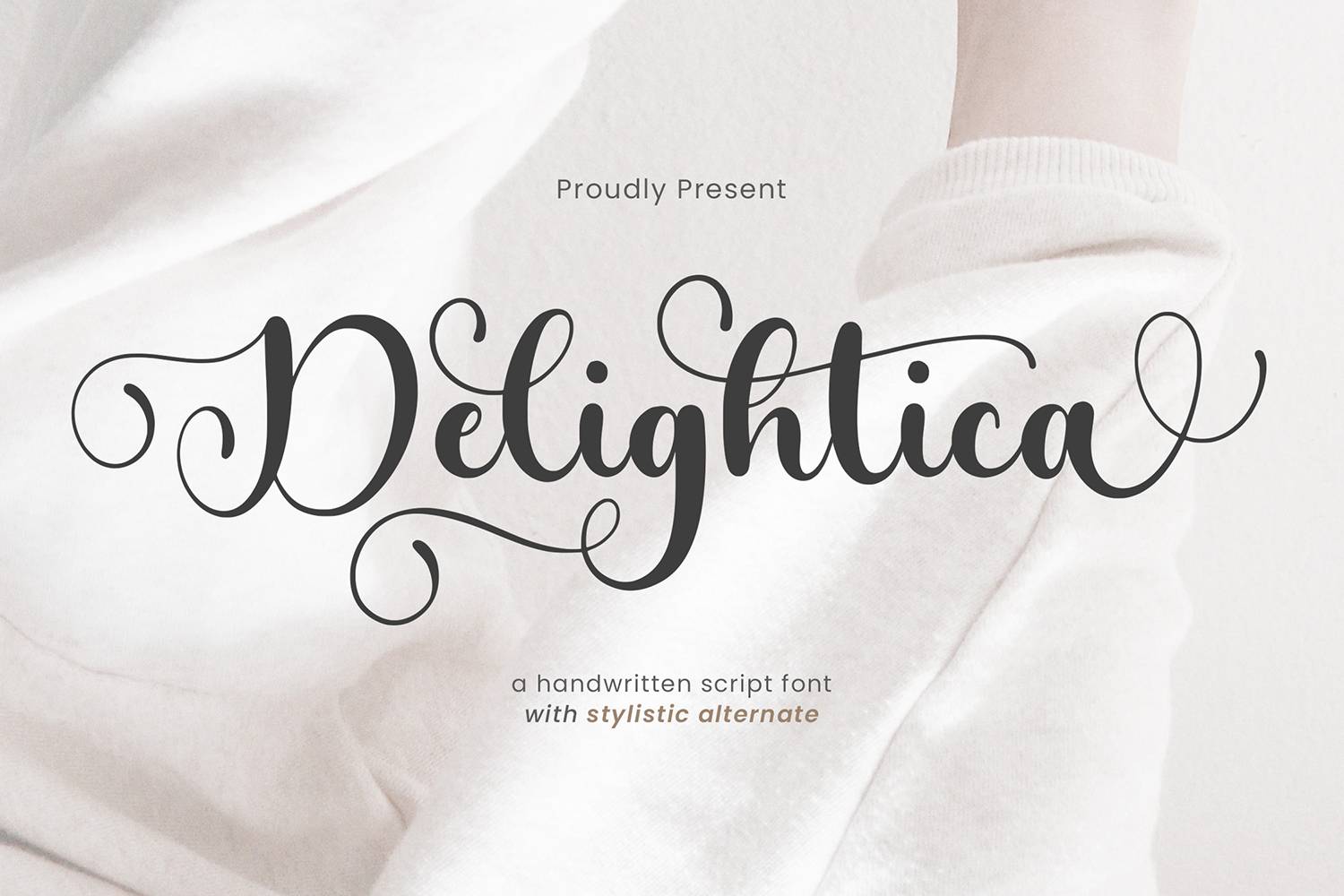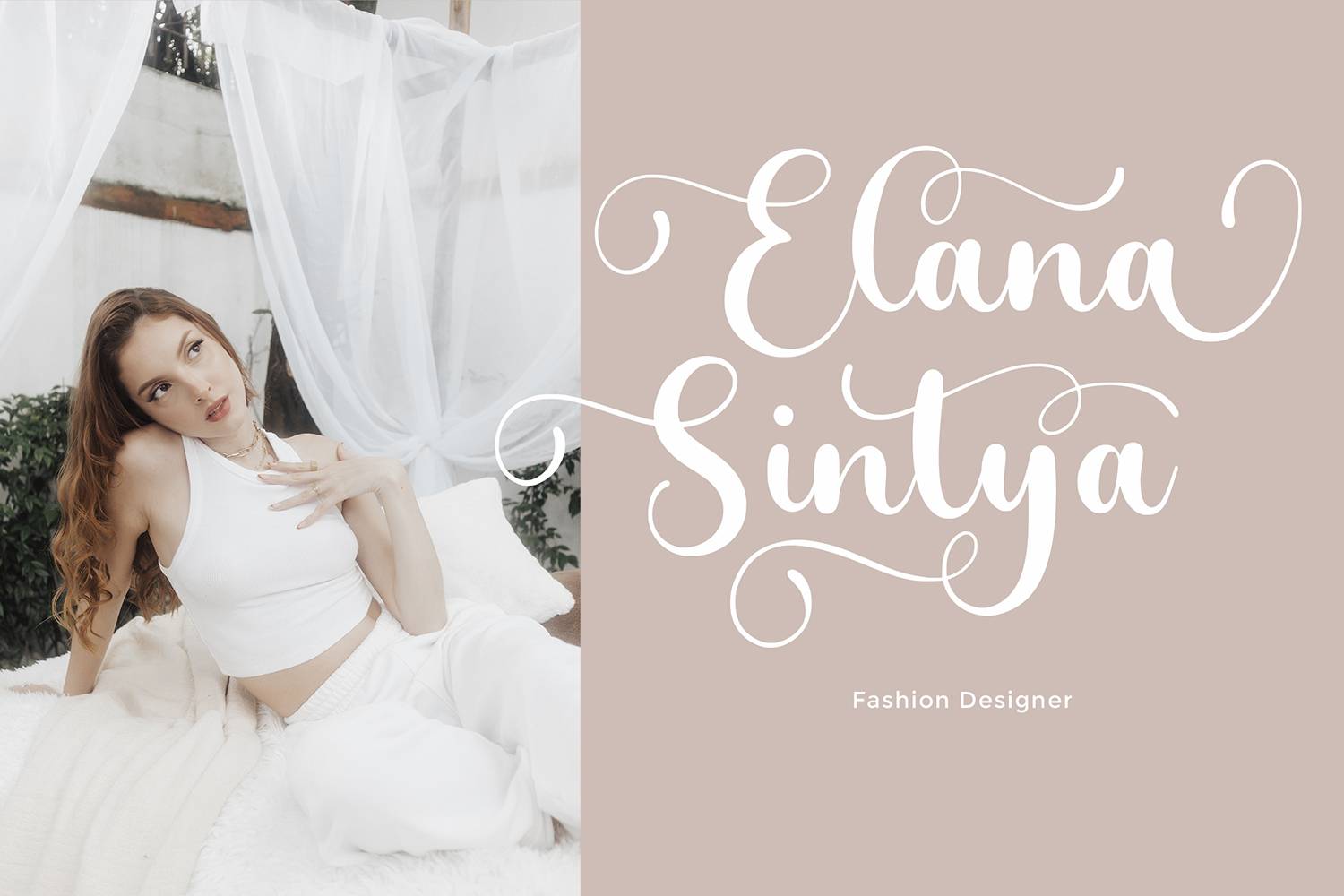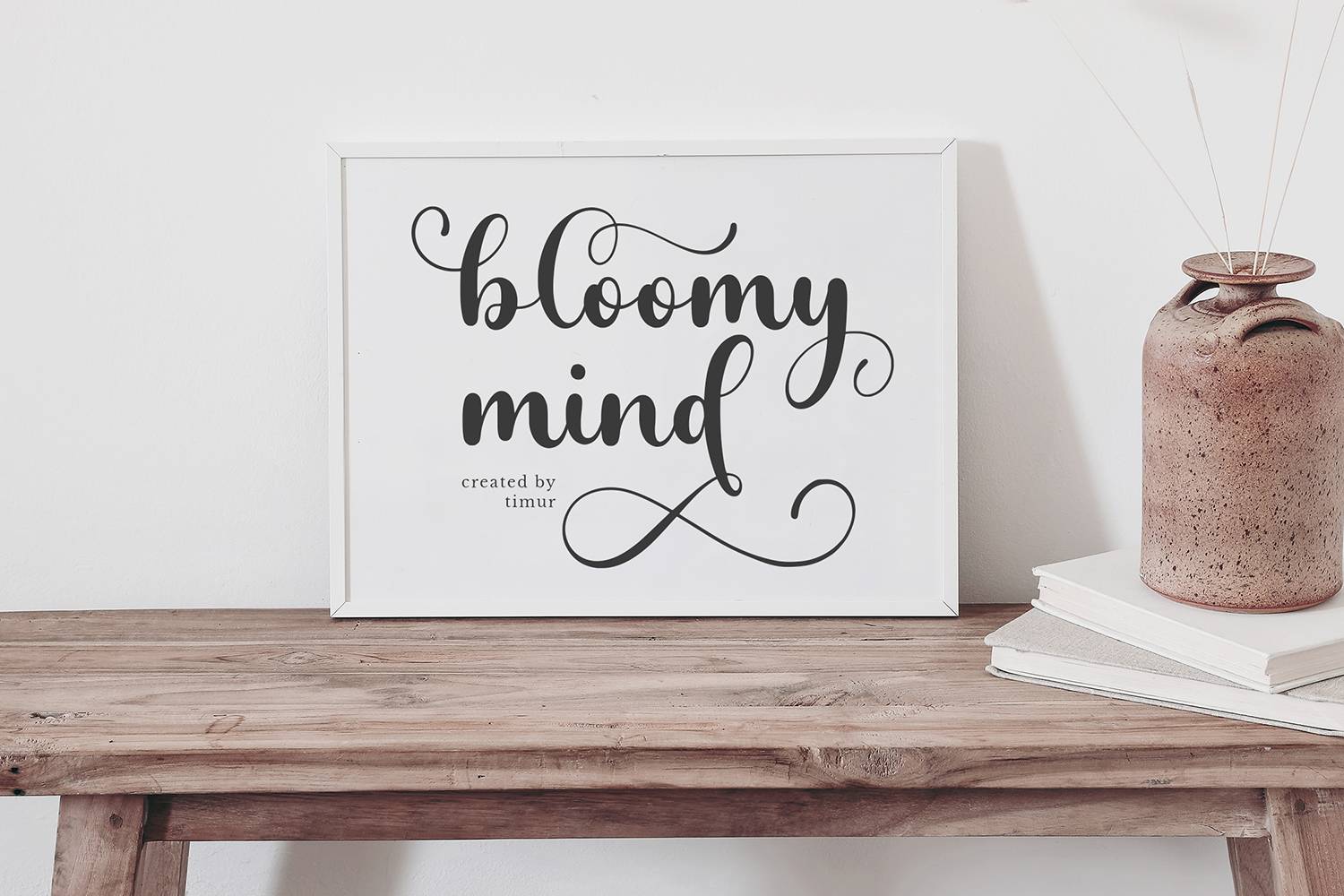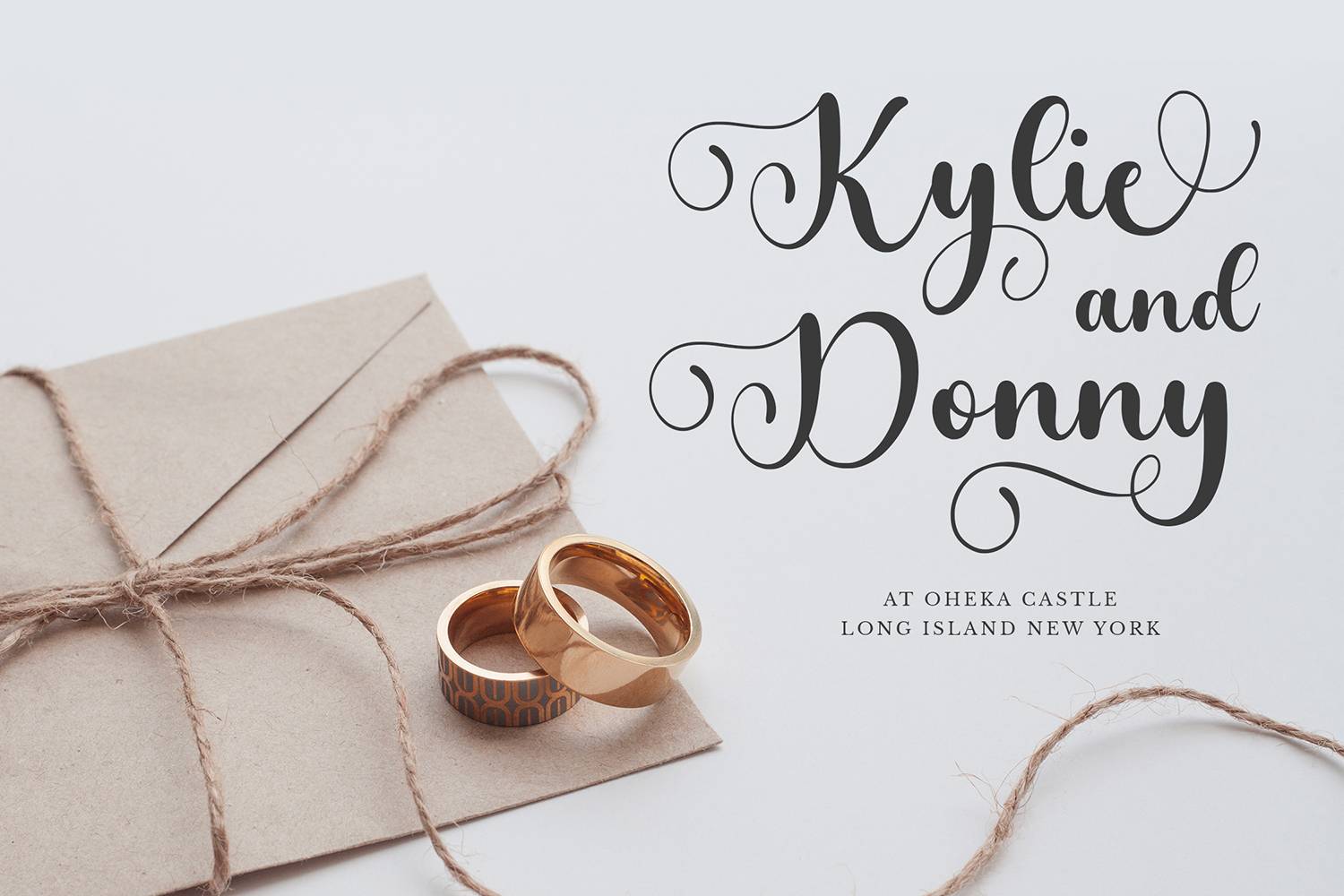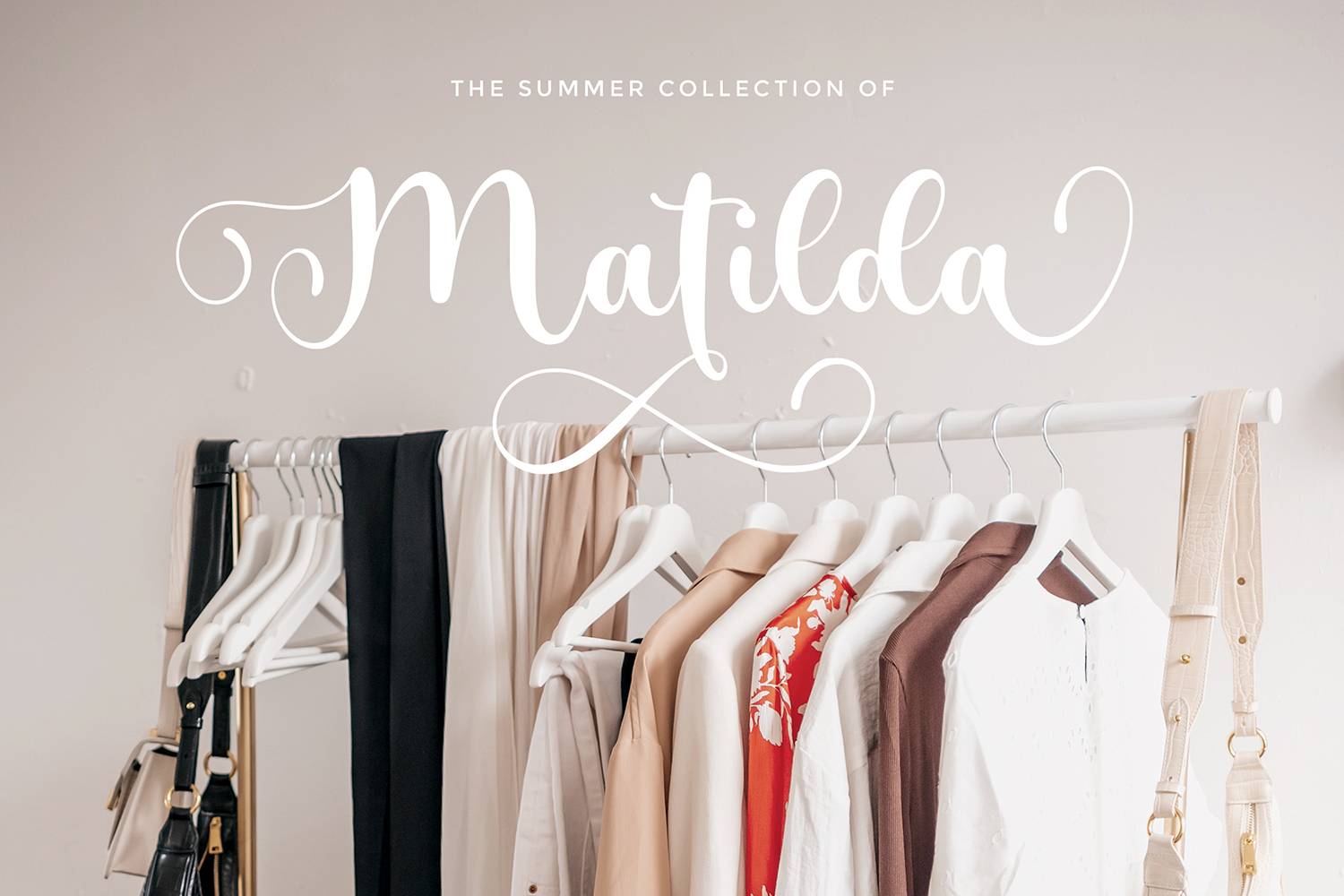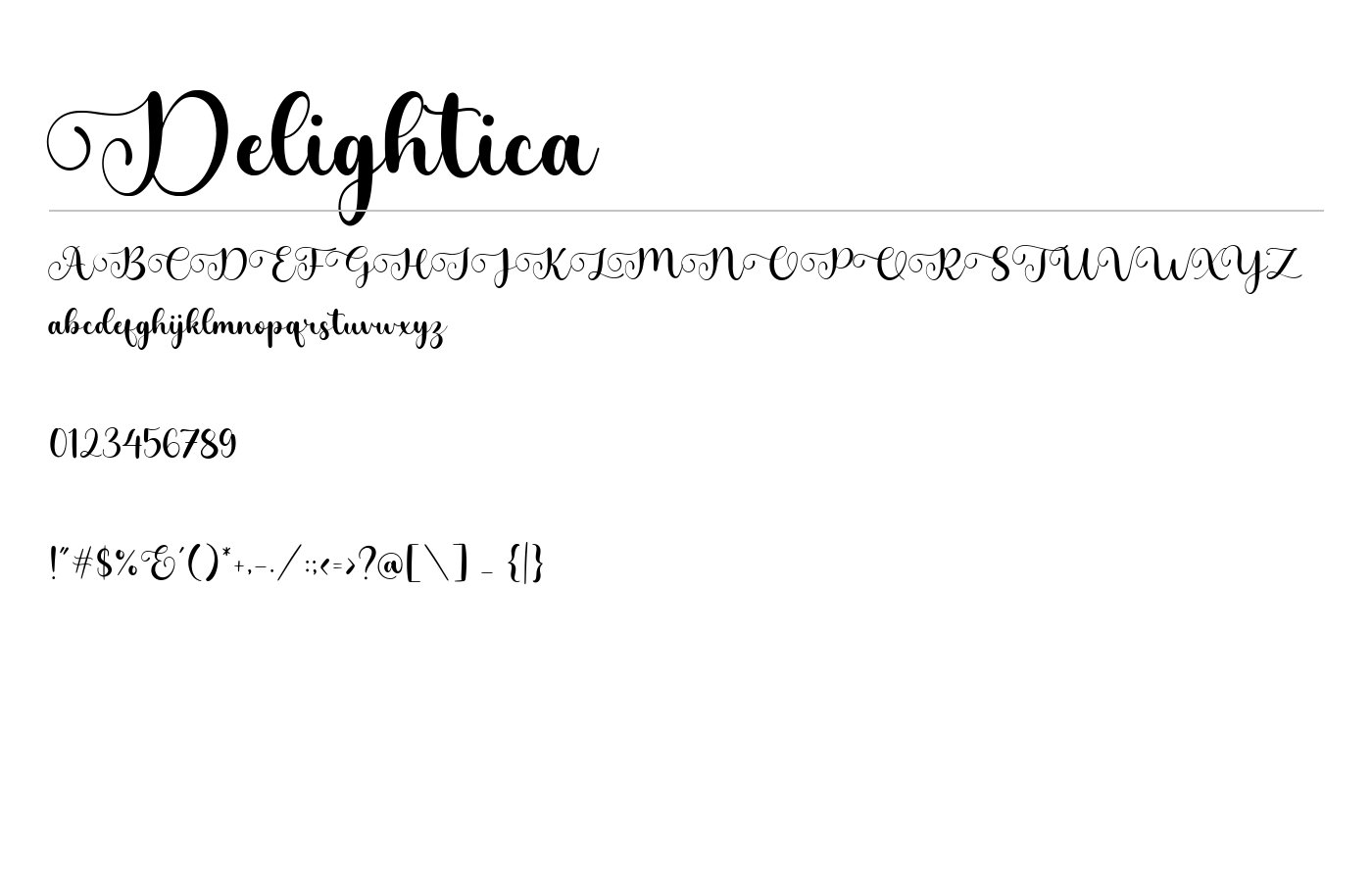
Delightica is a charming script font with elegant, flowing letterforms and delicate curls that bring a graceful, handcrafted feel. Its playful yet sophisticated style works wonderfully for invitations, branding, and decorative purposes where a touch of whimsy and refinement is desired. This font shines in designs that aim to evoke warmth, creativity, and a personal touch.
Delightica Font
About Delightica Font